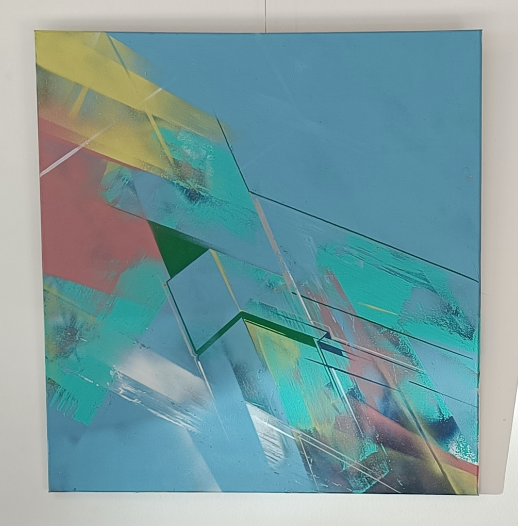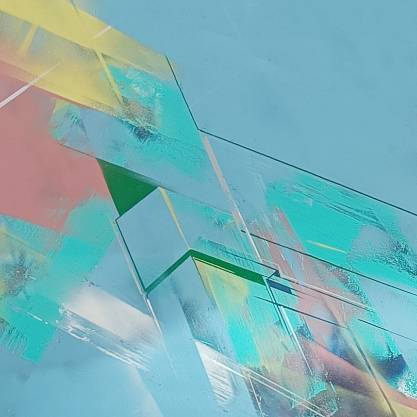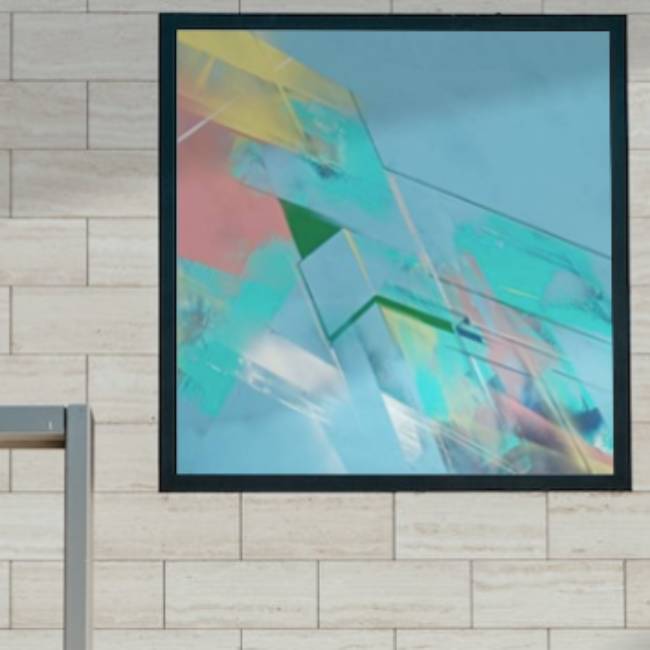
What to guess
Estimates, calculations, Returns. Pay, what you sow.
The work has a nature of an ambigram - and can be interpreted in different ways.
This work is the first in a series of changing my method of scaling up the method - maybe the link between canvas work and walls stronger and more evident.
Based upon my latest solo wall spanning 13 meters x 2.3 meters, I explored the application of the same workflow and unconstrained approach to organic and straight lines.
- I put up the canvas as part of the wall and started lining up basic shapes and lettersapes, forming the lines of a perhaps “W”.
Getting a few colors down, and working into carving out the energy within. - taking the canvas from the wall and the3rrrv
After some time, I transformed the energy and flipped the conversation.